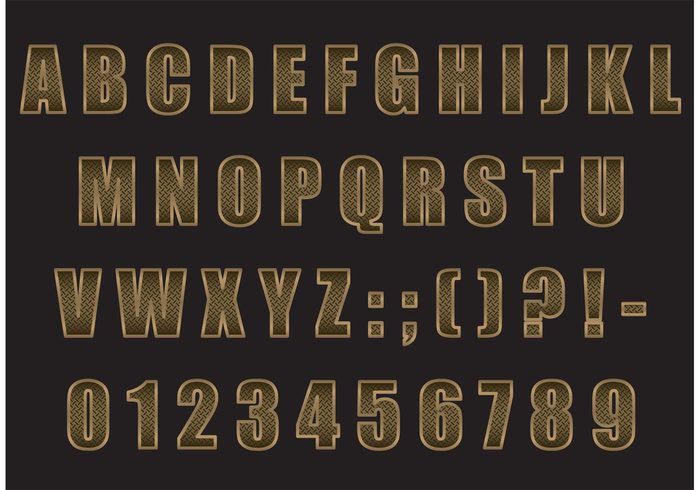
Golden Metal Factory Inspired Vector Font
Customize the titles in your projects, publications in web, printed supports and designs with this incredible golden metal vector alphabet. Add a unique touch in your works with this set that includes capital letters – change the colors and edit the characters if you need special letters.